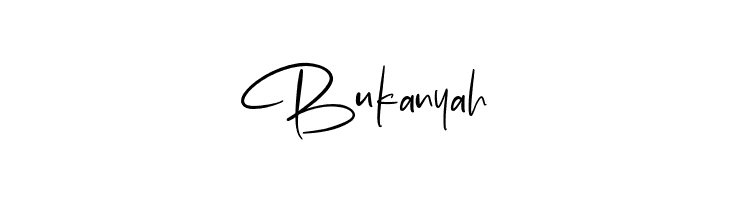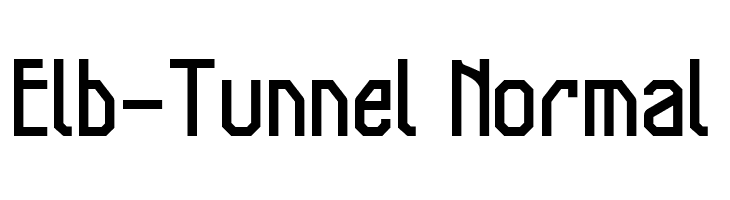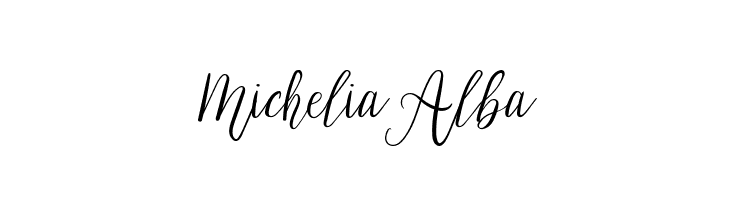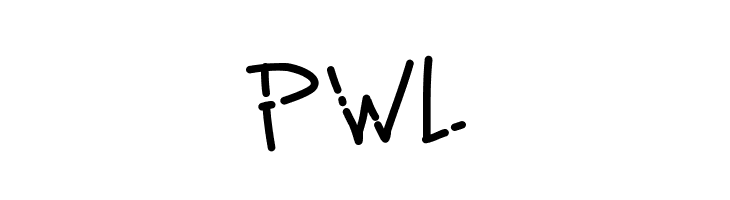
A geometric, angular font with a bold, industrial style.
A bold, angular font with a futuristic, robotic style and leftward slant.
A cursive script font with elegant, flowing letterforms and smooth strokes.
A futuristic, angular, and italicized font with bold geometric shapes.
A bold and dynamic font with strong, thick strokes and a slightly condensed form.
Bold, high-contrast serif font with a modern yet classic feel.
A playful, dotted line font with a whimsical and informal style.
A playful, hand-drawn font with tall, narrow characters and a whimsical style.
An elegant script font with flowing, cursive letterforms and artistic flair.
A stylish, slanted script font with a handwritten, elegant flow.